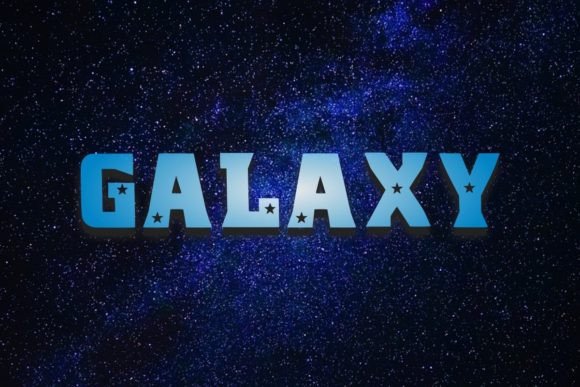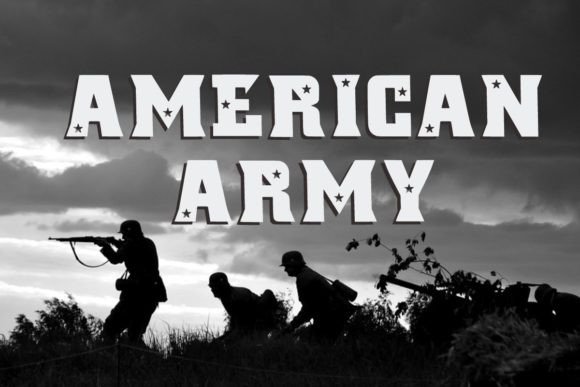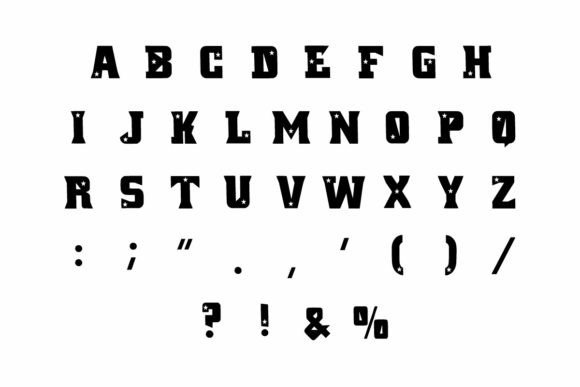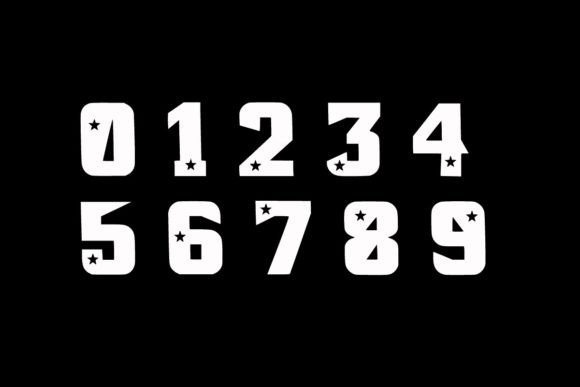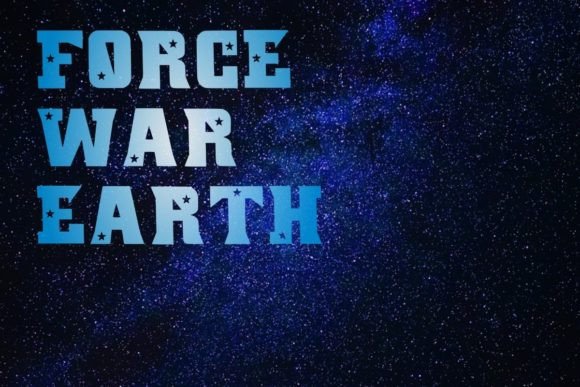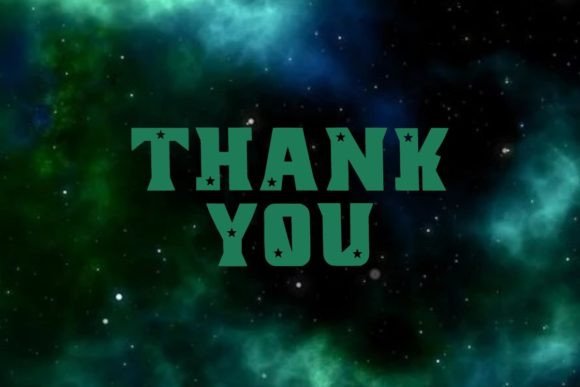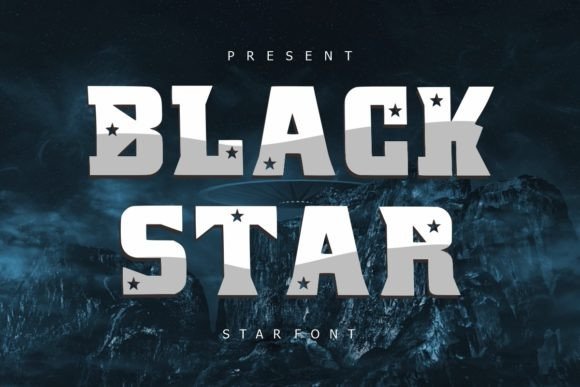
Introducing Black Star Font: The Ultimate Winter Wonderland Display Font
Are you looking for a font that adds a touch of magic to your winter and holiday branding projects? Look no further than the Black Star Font. This fun and bold display font is designed to make your designs shine, with star shape elements that are sure to captivate your audience. In this article, we’ll dive into the features and benefits of the Black Star Font, and explore how it can elevate your designs to the next level.
What is Black Star Font?
Black Star Font is a unique and eye-catching display font that combines bold typography with star shape elements. The font is carefully crafted to resemble a winter wonderland, making it perfect for holiday branding projects, product packaging, invitations, quotes, t-shirts, labels, posters, and logos. The font’s design is versatile and can be used for a wide range of applications, from festive and fun to elegant and sophisticated.
Key Features of Black Star Font
• Bold and Fun Design: The Black Star Font features a bold and playful design that’s sure to grab attention. The star shape elements add a touch of whimsy and fun, making it perfect for winter and holiday-themed designs.
• Star Shape Elements: The font’s star shape elements are carefully designed to add a touch of magic to your designs. You can use them to create custom text effects, logos, and graphics that are sure to impress.
Benefits of Using Black Star Font
So, why choose the Black Star Font for your winter and holiday branding projects? Here are just a few benefits of using this amazing font:
• Stand Out from the Crowd: The Black Star Font is designed to help you stand out from the crowd. Its unique and eye-catching design ensures that your designs get noticed.
Use Cases for Black Star Font
The Black Star Font is versatile and can be used for a wide range of applications, including:
• Winter and Holiday Branding: Use the Black Star Font to create festive and fun branding projects, such as logos, packaging, and advertising materials.
• Product Packaging: Add a touch of magic to your product packaging with the Black Star Font. It’s perfect for creating eye-catching labels and packaging materials.
• Invitations and Quotes: Use the Black Star Font to create custom invitations and quotes that are sure to impress.
• T-Shirts and Merchandise: The Black Star Font is perfect for creating custom t-shirts, hoodies, and other merchandise.
• Posters and Text Effects: Use the Black Star Font to create stunning posters and text effects that are sure to grab attention.